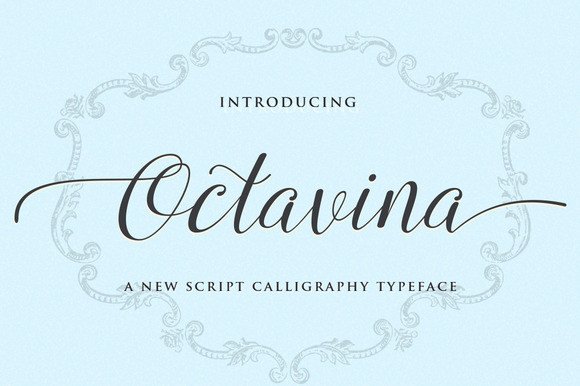
Introducing Octavina Script, the exquisite handwritten font that will captivate your audience with its enchanting beauty. Crafted by the talented Ian Mikraz, this script font exudes elegance and playfulness that's perfect for adding a touch of sophistication to your designs.
Immerse yourself in a world of creative possibilities as you explore the depths of Octavina Script. With its diverse collection of alternates, each housed in its own font, this font is a dream to work with. Experiment with various styles and combinations to create unique and visually striking designs that will leave a lasting impression.
Whether you're a seasoned designer or just starting out, Octavina Script is the perfect choice for adding a personal touch to your projects. Its gorgeous letterforms, swashes, and ligatures make it an ideal font for branding, wedding invitations, greeting cards, social media posts, and any other project that demands a touch of elegance.